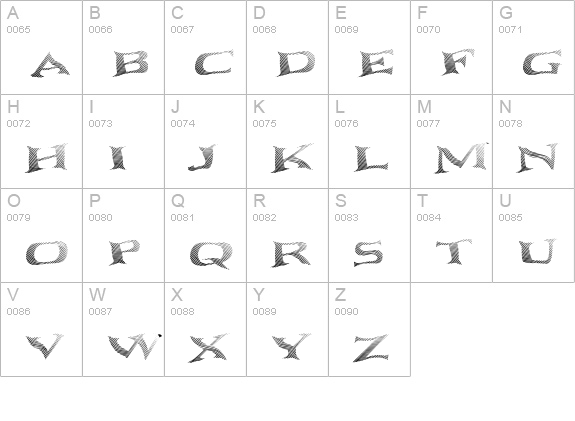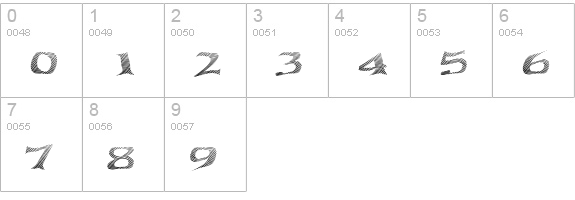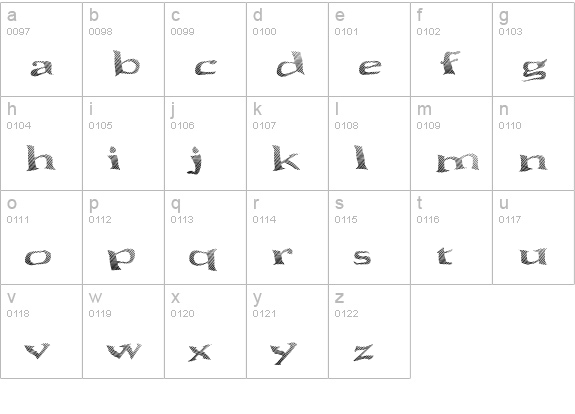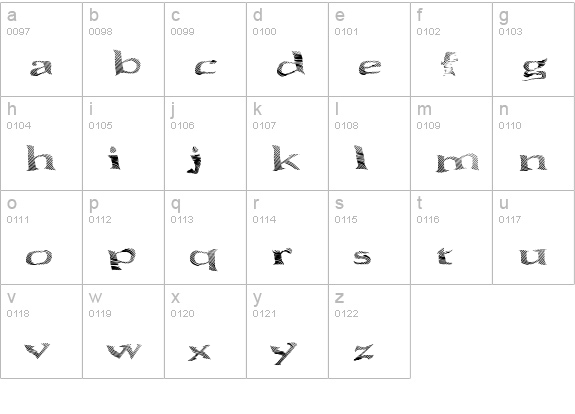
Seawave Basic Font Details
Seawave Basic font is a sleek and modern typeface that captures the fluidity and movement of ocean waves. Its clean lines and elegant curves make it perfect for a wide range of design projects, from branding to editorial design. The font exudes a sense of calm and tranquility, reminiscent of a peaceful day at the beach. What's even better is that Seawave Basic font is available for free download at FontsMarket.com. This means you can easily add this stunning font to your collection without any cost. Don't miss out on the opportunity to enhance your designs with the beauty of Seawave Basic font. Download it now and let your creativity flow like the gentle ebb and flow of the sea.